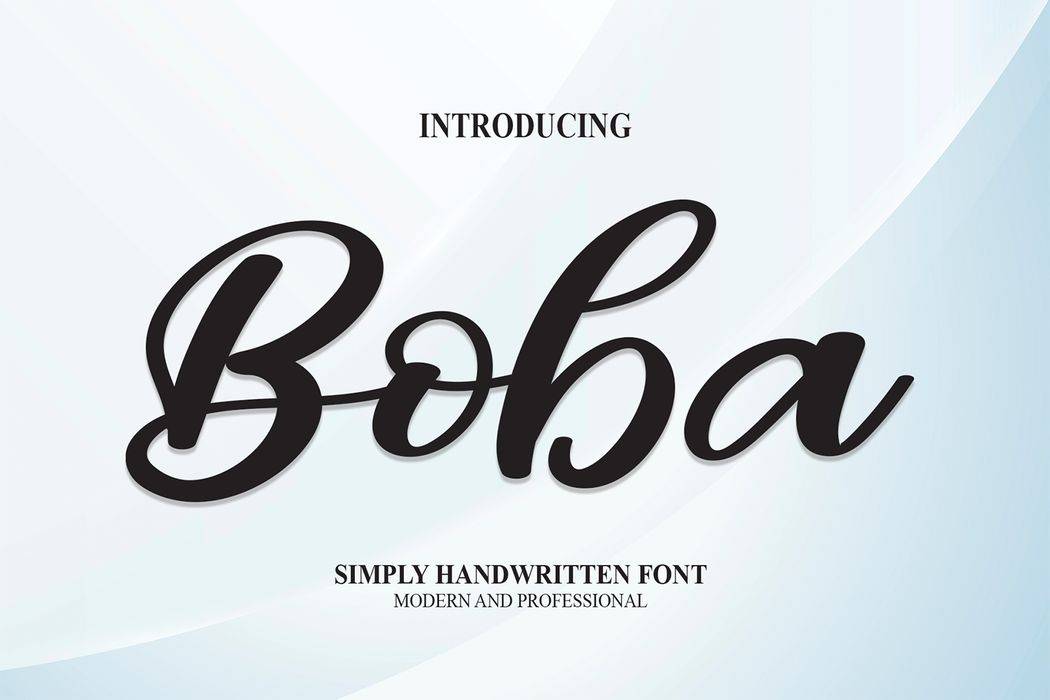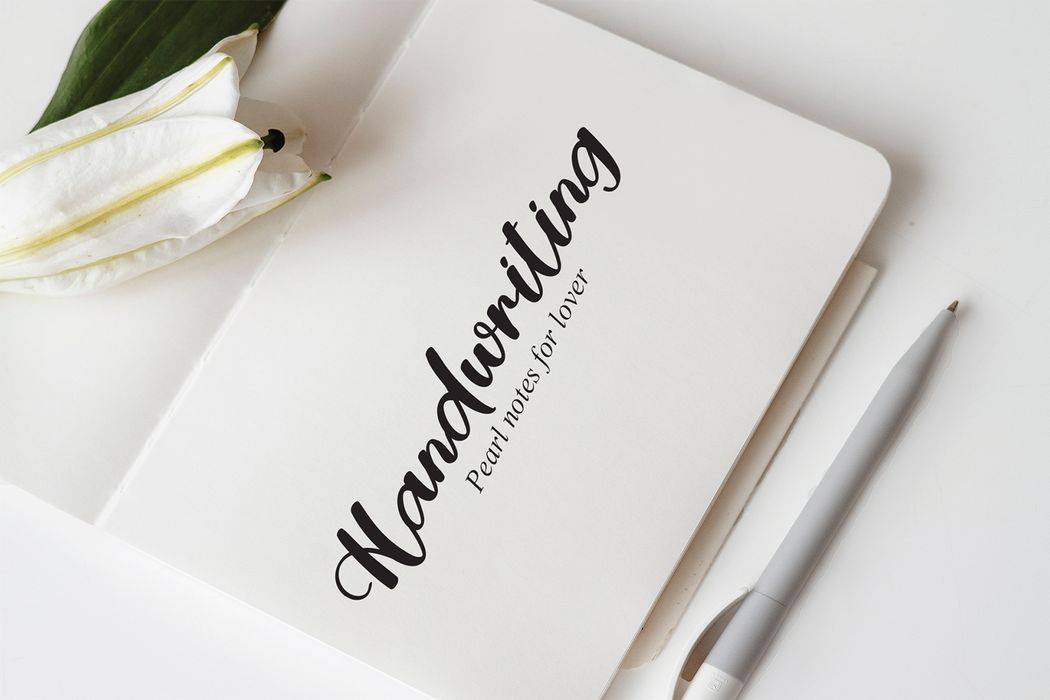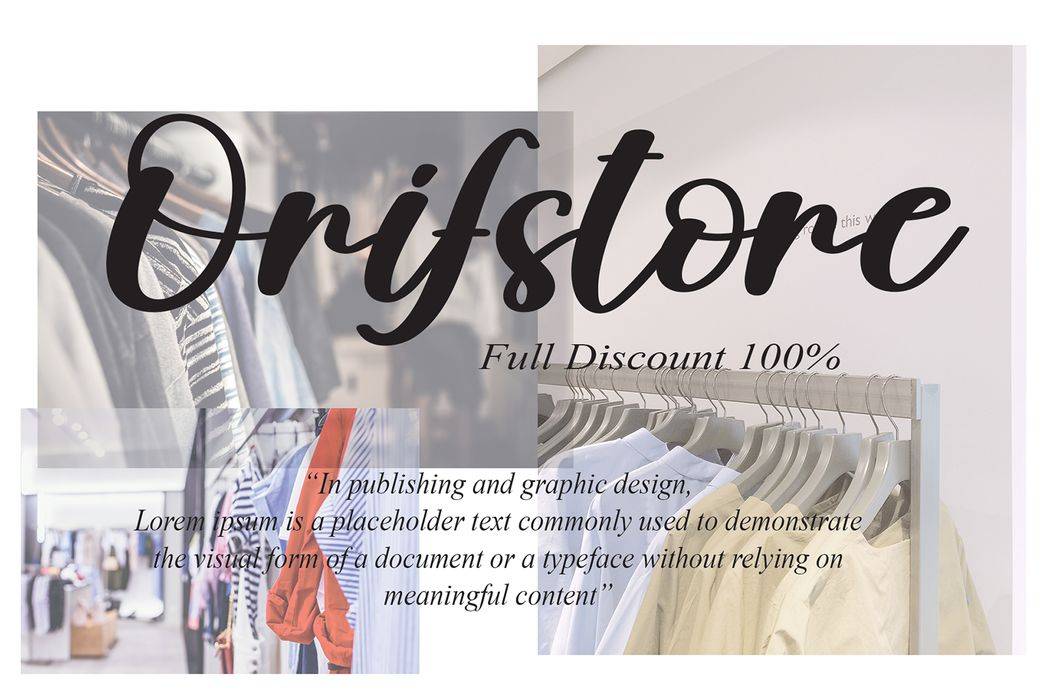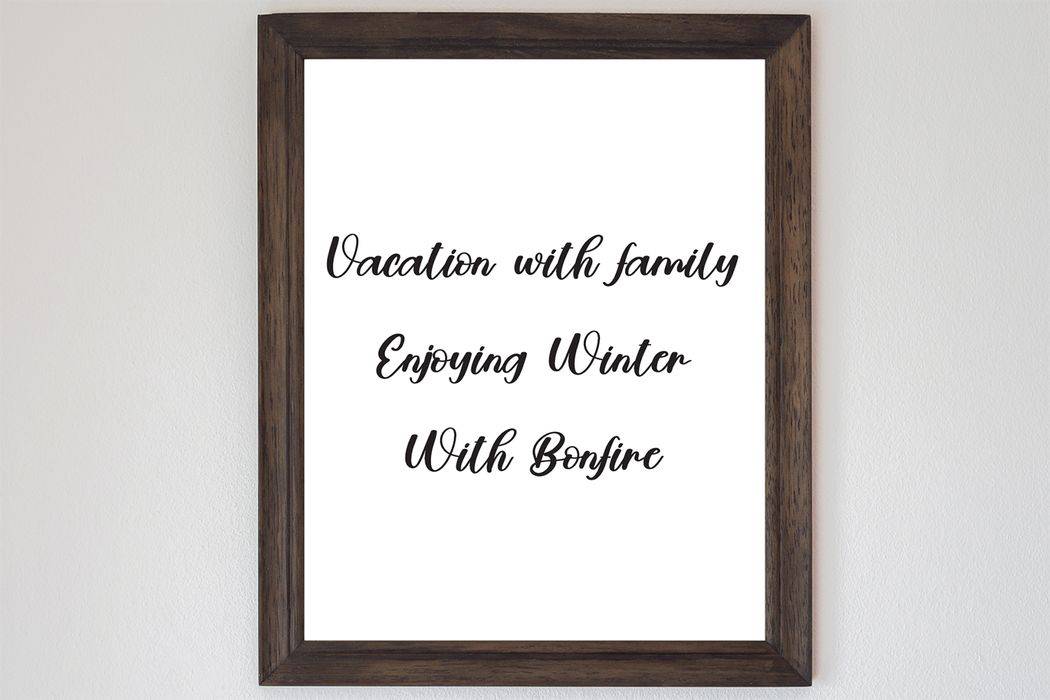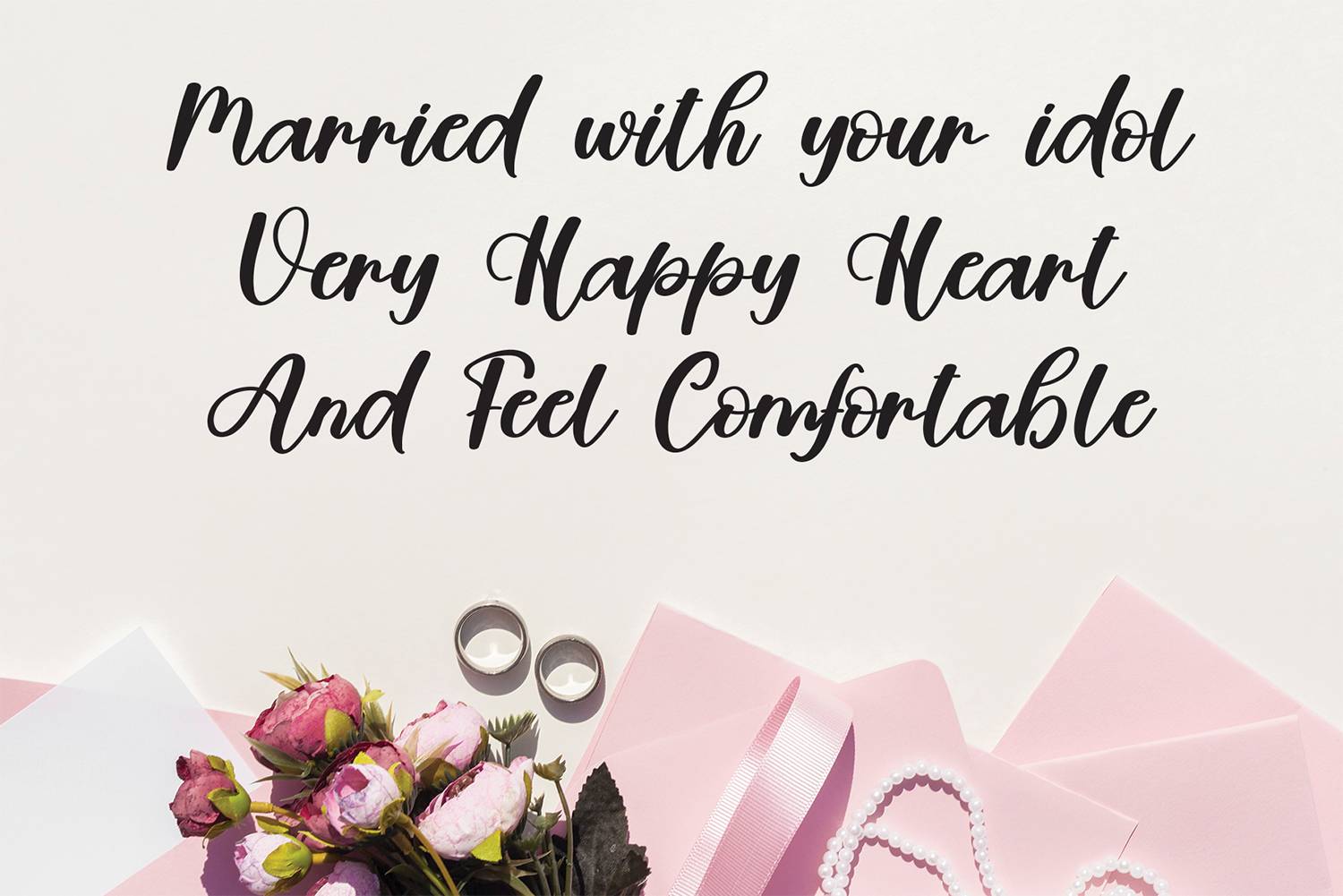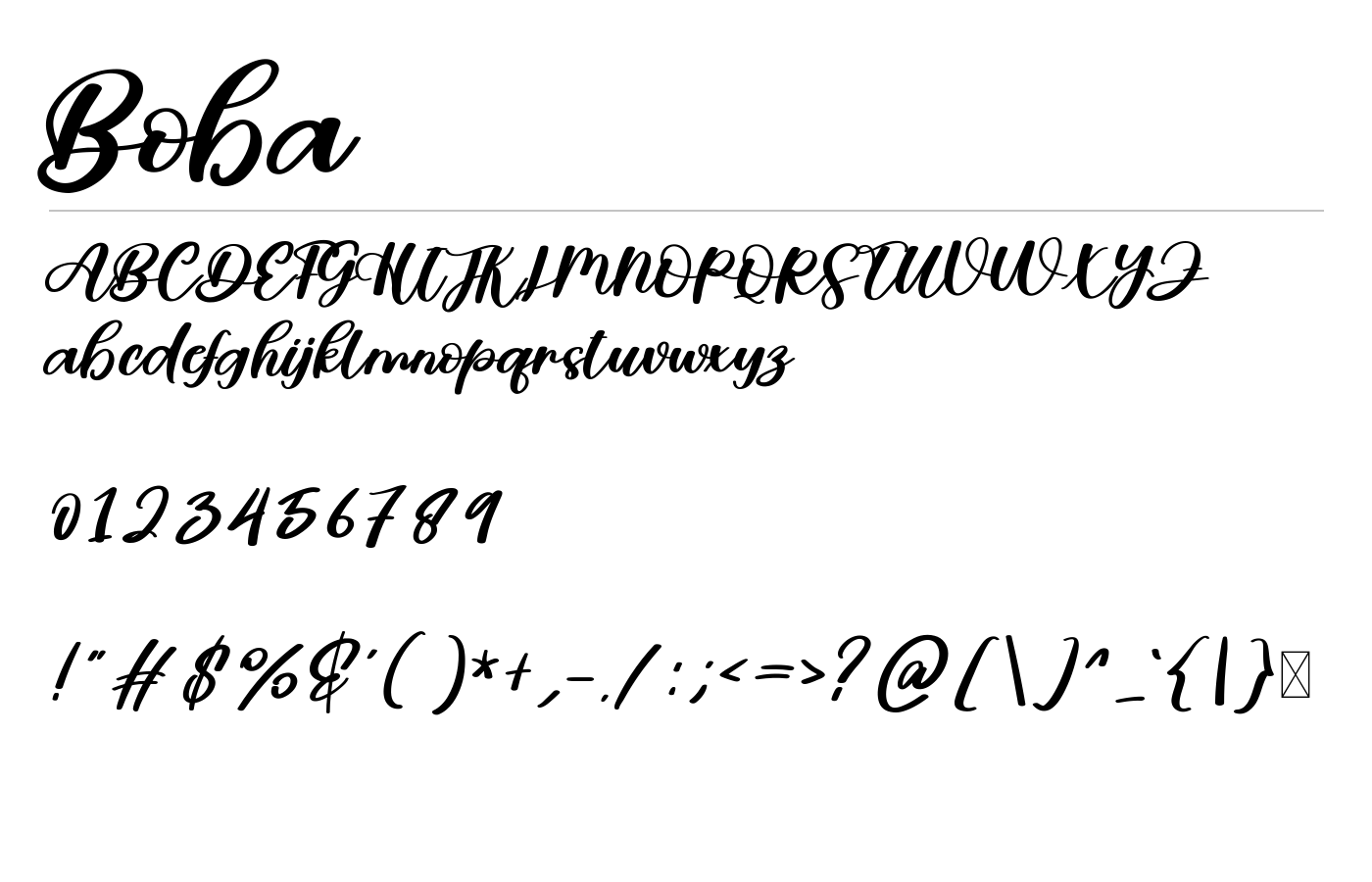
Boba Font is an elegant script typeface with smooth, flowing strokes and a medium weight that combines classic calligraphic charm with modern flair. Its cursive letterforms feature delicate curves and slightly varied stroke widths, making it perfect for creative branding, invitations, and stylish headlines that need a personal, artistic touch. This font works beautifully where a sophisticated yet approachable feel is desired, especially in fashion, beauty, and lifestyle designs.
Boba Font
About Boba Font